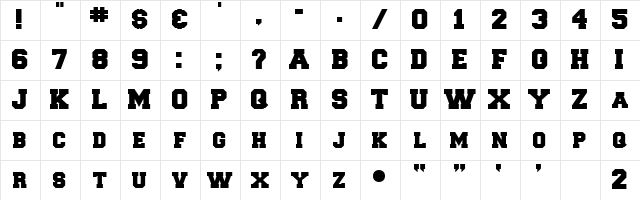
CollegeJersey
Design Context for CollegeJersey
CollegeJersey brings high-energy athletic personality to the page - its confident, muscular forms are built for impact.
Pro Tip: Use CollegeJersey in all-caps headlines where its athletic energy can fully express itself. Pair with a solid, simple sans for supporting text.